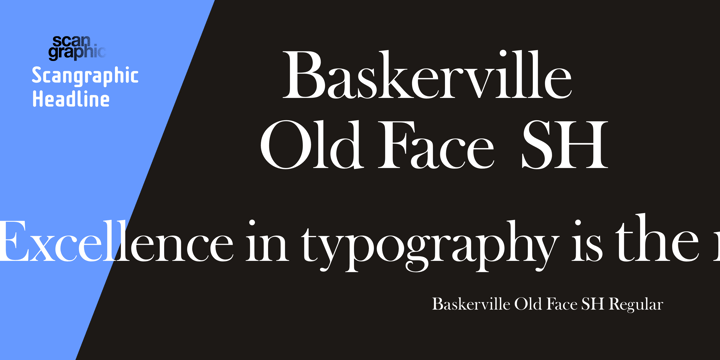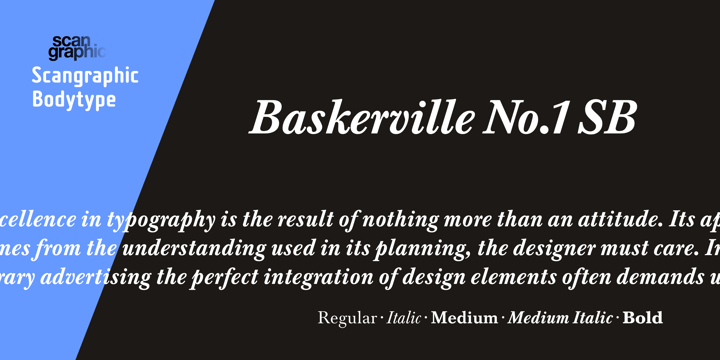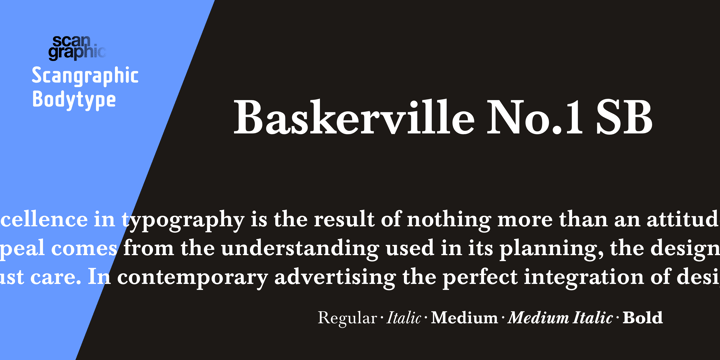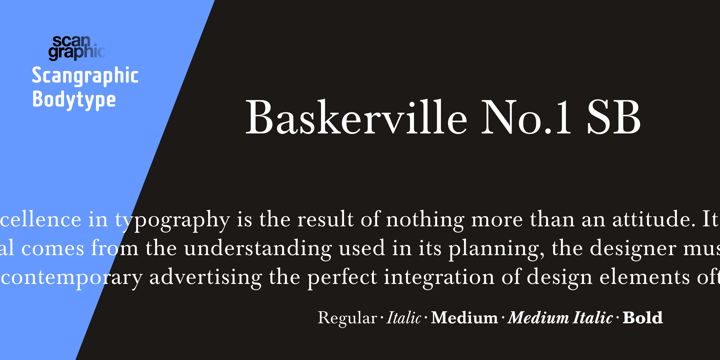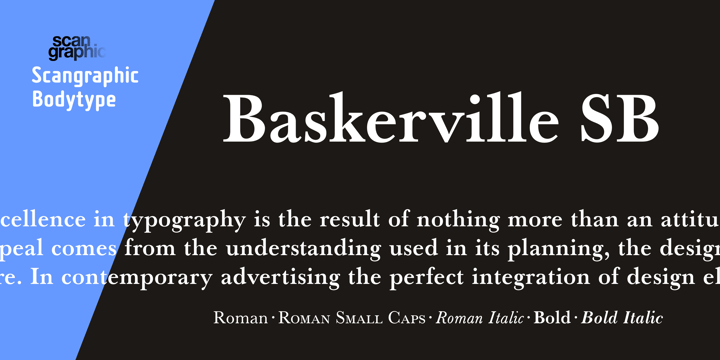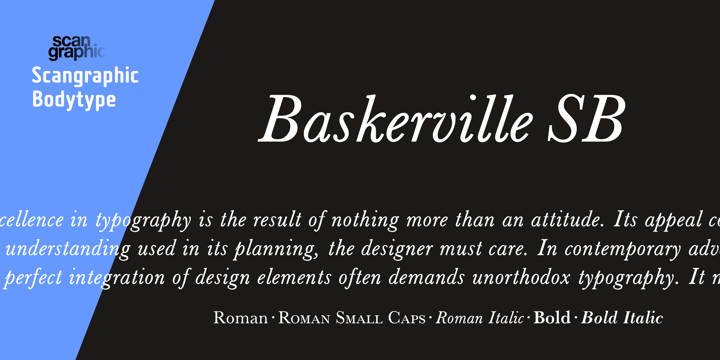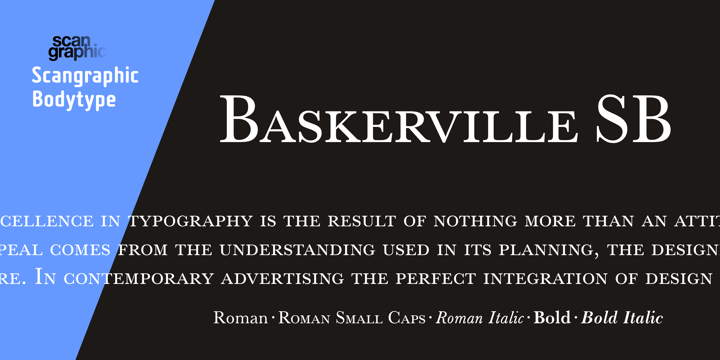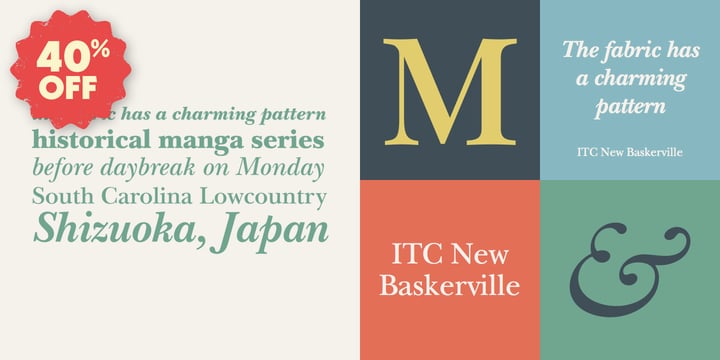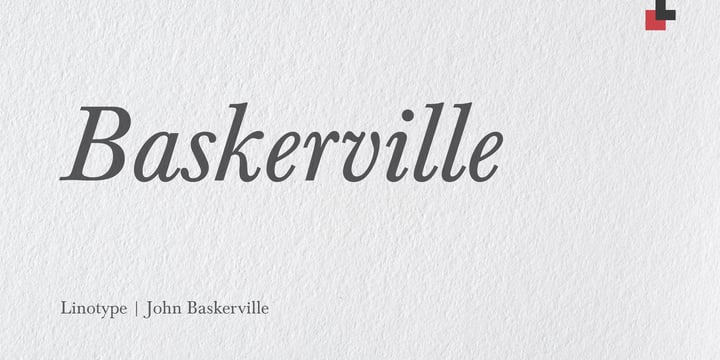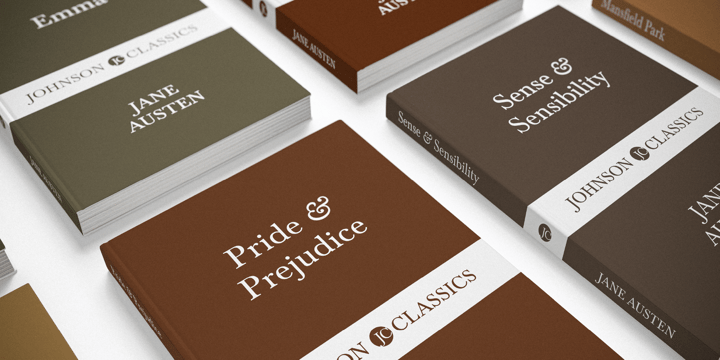
John Baskerville
English writing master, stonecutter, letter designer, typefounder and printer. Although in his lifetime he was underappreciated compared with his close contemporary William Caslon, he is now recognized as the other half of the duo that transformed English printing and type founding. After first working as an accomplished writing master and headstone engraver in Birmingham, he found business success japanning (coating with black varnish) trays and snuff-boxes. With capital from this, in 1750 he set up a printing business, hiring John Handy as punchcutter. His quest for perfection meant his first complete book took until 1757 to produce, during which time he made major innovations in press construction (making a flatter, sturdier bed), printing ink (blacker, more even, and quicker-drying), papermaking (wove instead of laid), and of course letter design (which Handy cut to Baskerville’s designs). The result was a brilliant series of original typefaces and splendid books appearing from 1754 to 1775. Baskerville lost a great deal of money in his printing ventures, and at one point asked for a government subsidy while he was printing his masterpiece, a Bible for the University of Cambridge. The perfection of his work seems to have unsettled his compatriot printers, and some claimed his printing damaged the eyes! Abroad, however, he was much admired, notably by Fournier, Bodoni (who intended at one point to come to England to work under him), and Benjamin Franklin. The modern revival of Baskerville’s designs began in the 1920s, thanks to the work of Bruce Rogers, and soon the major foundries all had their own Baskervilles.